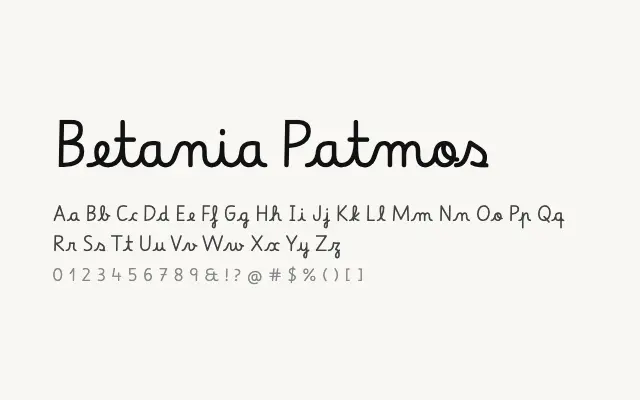
Betania Patmos
A flowing calligraphic script designed primarily for decorative use in religious and devotional publishing.
Betania Patmos features connected, pen-influenced letterforms that give it warmth and a handcrafted feel. Its primary application is in religious or inspirational publishing where a softer, calligraphic voice is appropriate. The single Regular weight and narrow scope of application limit its broader design utility.
Betania Patmos is a calligraphic display script with flowing, connected letterforms designed for decorative and religious publishing contexts. The design has a handwritten warmth with formal calligraphic structure.